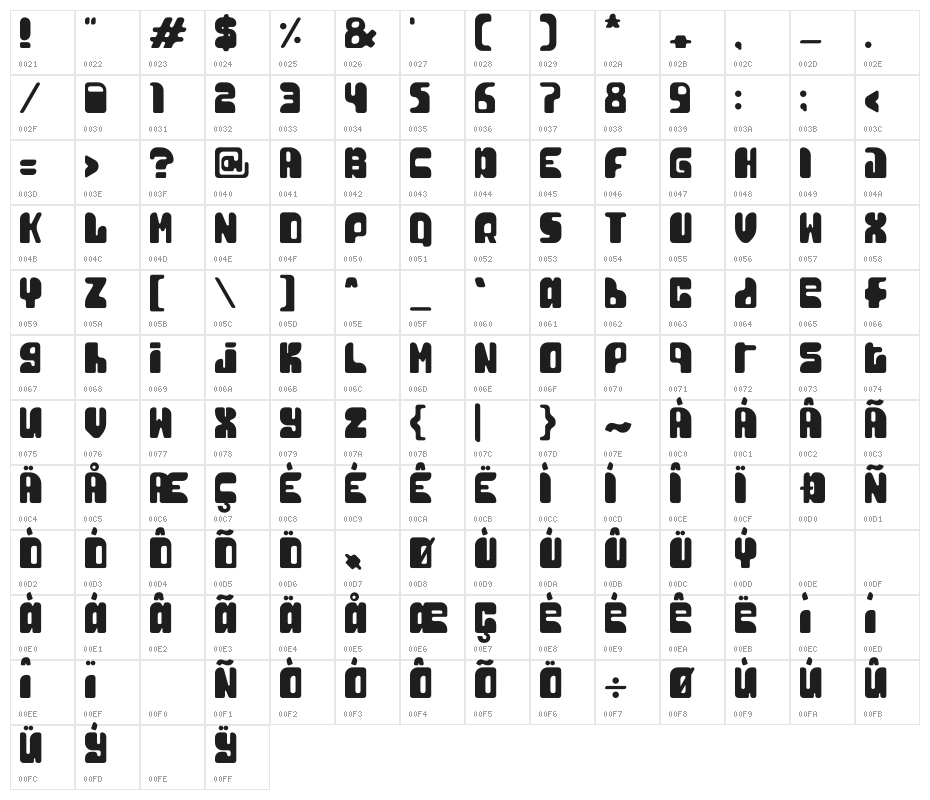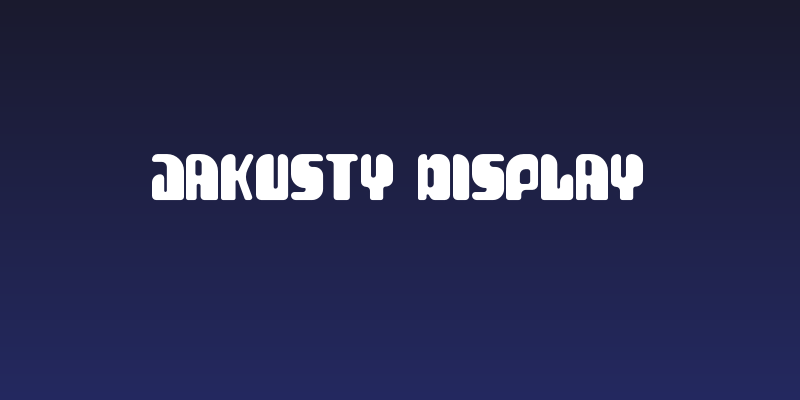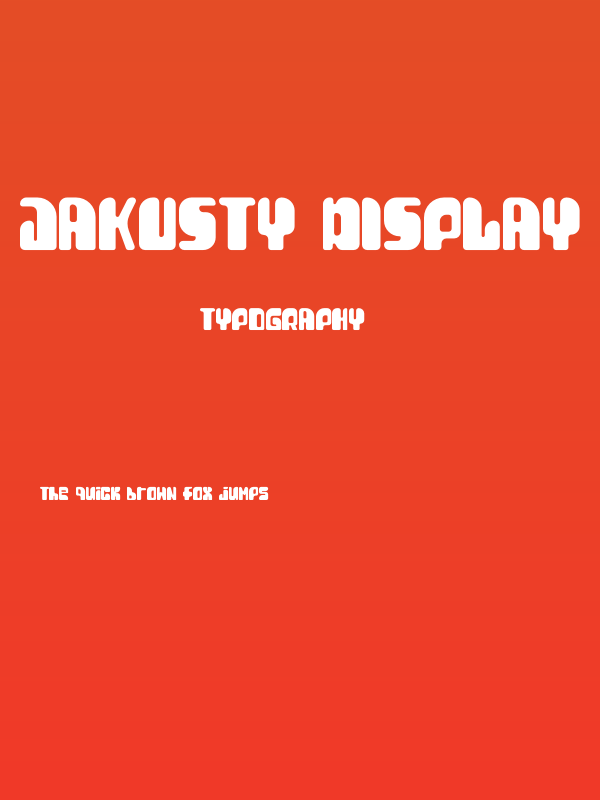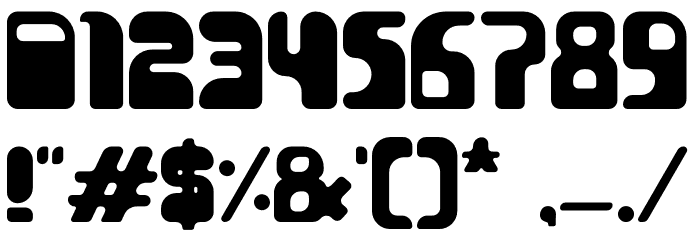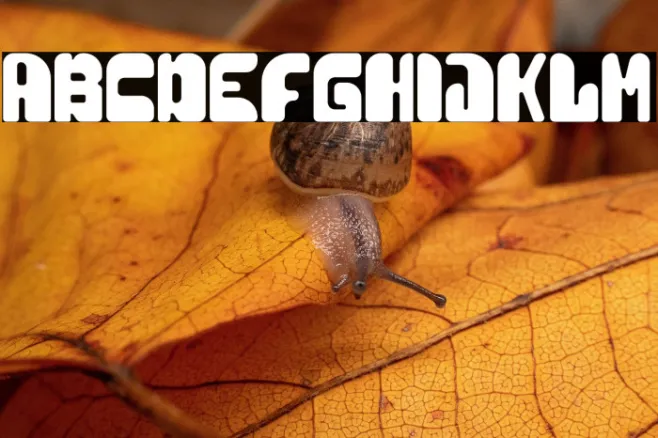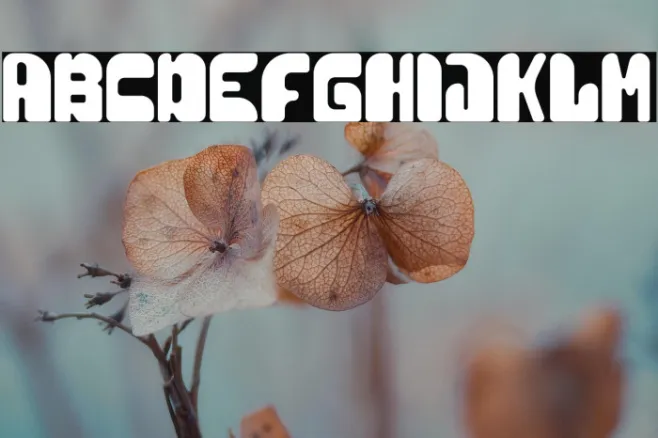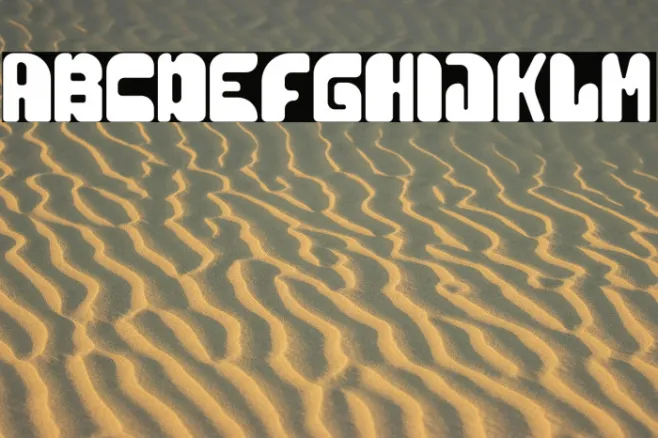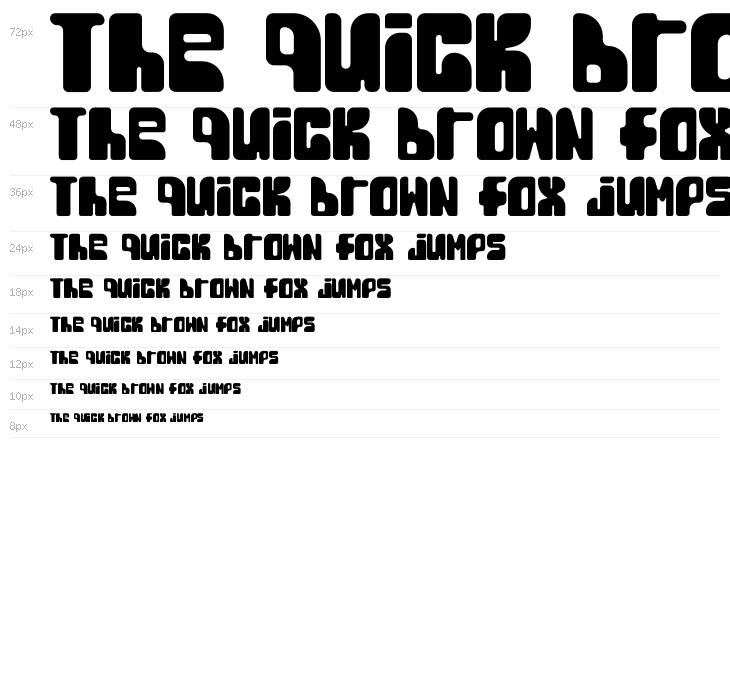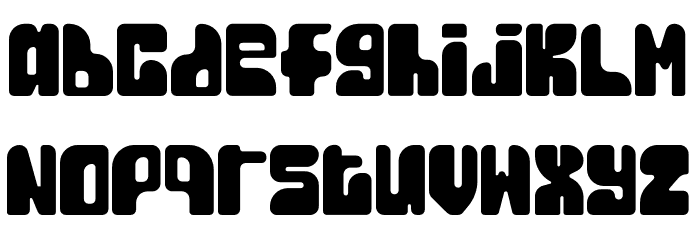
Jakusty Display Font
Jakusty Display Description
This font features a bold and playful design with rounded edges and a chunky appearance. The characters are uniformly thick, creating a strong visual impact. The style is distinctly modern with a touch of retro flair, making it suitable for eye-catching headlines and creative projects. The uppercase and lowercase letters maintain a consistent width, while the numbers and special characters follow the same bold aesthetic. The overall look is cohesive and designed to stand out, perfect for projects that require a fun and engaging typeface.
| Overall Style | Modern, Retro |
| Proposed Projects | Ideal for posters, branding, children's books, and creative advertising. |